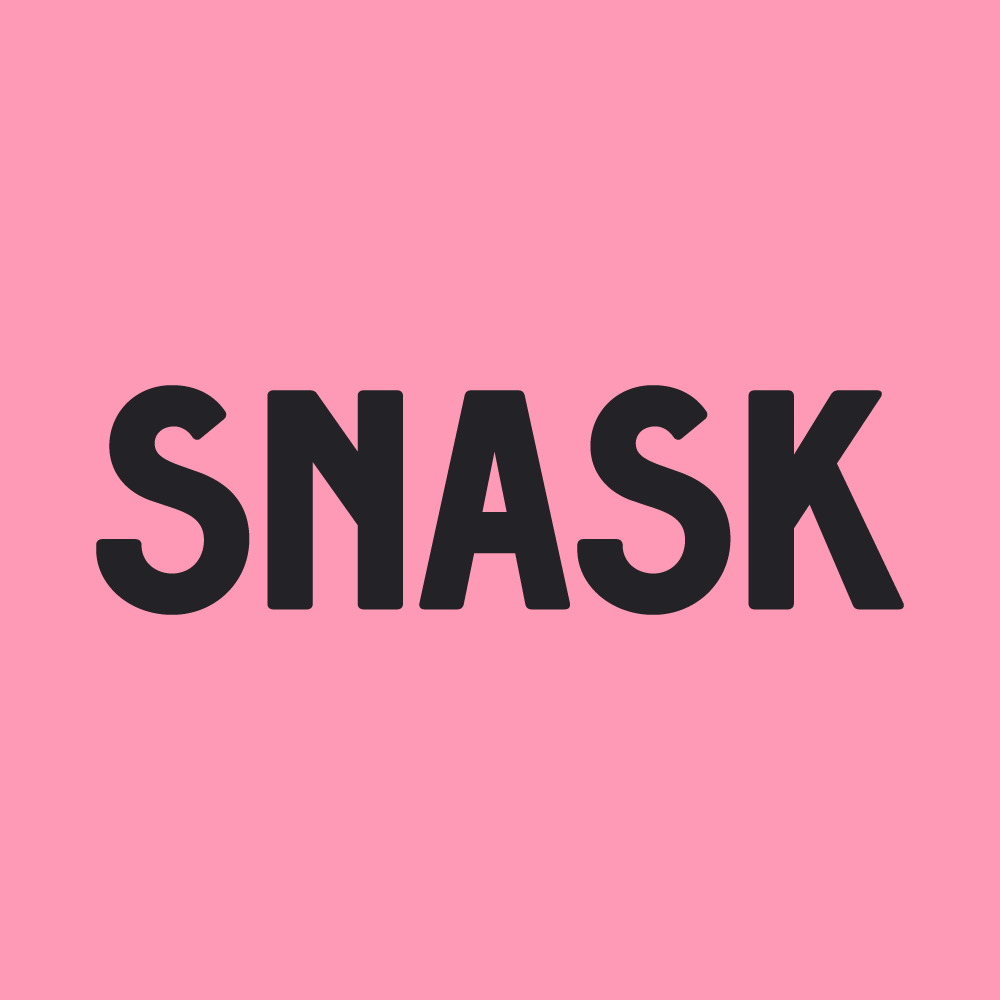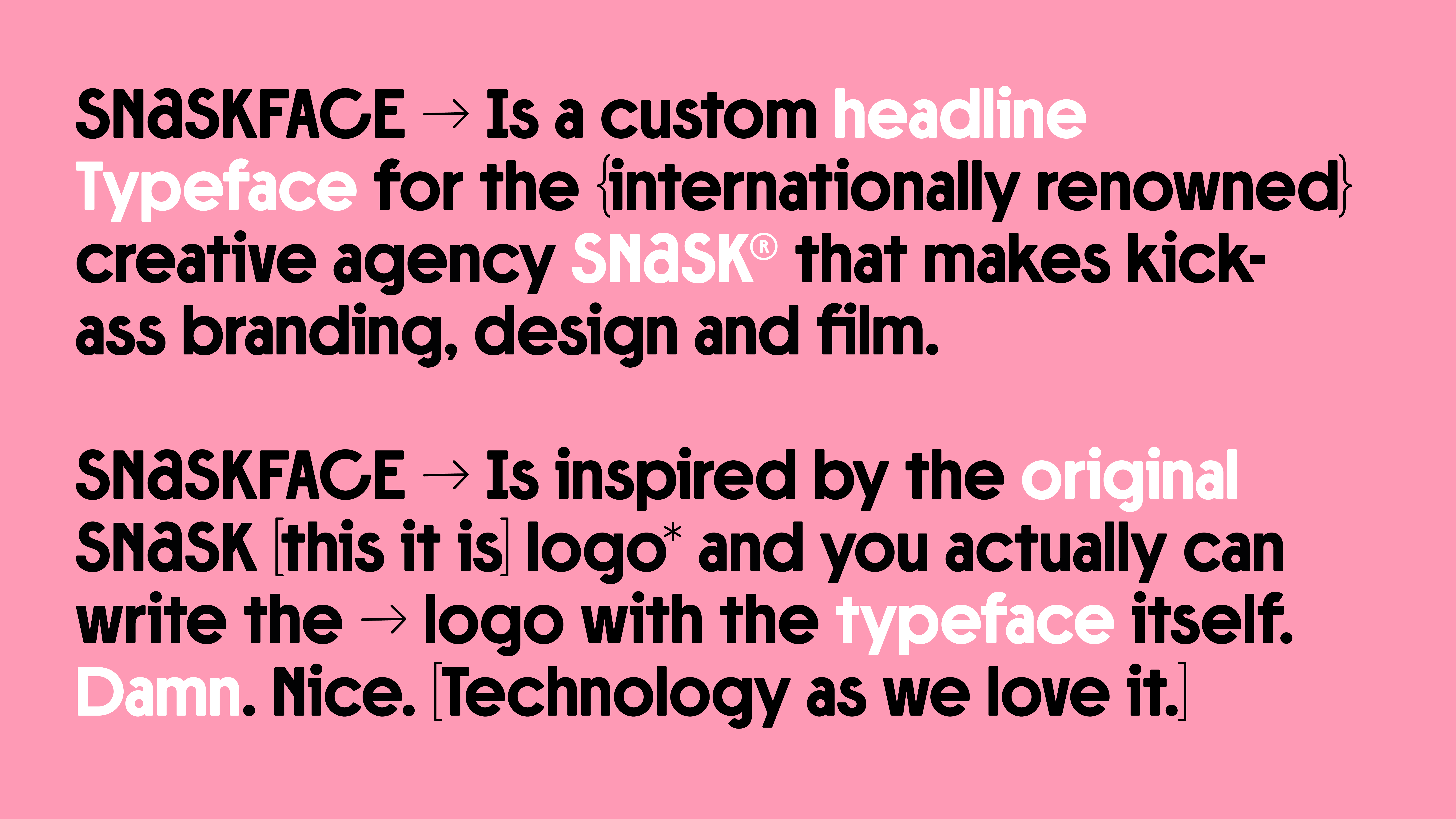
F37 Snaskface
Bottled right from the source, F37 Snask has all the attitude, humour and irreverence Snask is known for, readily available in a convenient font file.
Based off the original Snask logo, the font boasts many successfully unconventional features that give F37 Snask its distinct presence. There is a haphazardly charming approach to letter width that feels at home in both Art Deco and modern environments. The asymmetrical letterforms, rounded corners and mixed stroke endings add cheek and warmth to the font. Also included are many alternate letterforms and a set of thin punctuation.
F37 Snaskface
SNASK is your future romance. A creative agency of misfit geniuses conquering the world through fine lookin' design and real emotions.
They seek to challenge conservative frameworks and they do it with their backs straight, supported by their unbreakable values. They don't cower away from the challenge, as they see that the magic lies within the unexplored. In order to be great - you have to be brave and bold. In order to be real - you have to stand up for your opinions and beliefs. And that is Snask - brave, bold and real. They excel at branding, design and film and refuse to do anything else than what they see as world class. They are doctors of disturbance, wizards of disruption and spokesmen of disobedience. They take on the responsibility to stay engaged, give a damn, and strive for empathy. There is a short word for this assumption of responsibility: Snask.
F37 Snaskface
Tell us about the inspiration behind your collaboration with F37®×. If it was an unused concept, what was the potential use case for it.
Our intern Lukas Diemling helped out in realizing the Snaskface from a logo into a real bespoke typeface. Freddie, founder of Snask went to uni together with Rick, founder of F37®. So that's the connection!
When starting the process of creating your font, what typographic conventions did you look to break or experiment with? Or were there conventions of functionality you championed?
The starting point for the typeface was the original SNASK logotype. From here we wanted to maintain the quirkyness as well as something that broke the norm, still worked great as a typeface and looked better than Mick Jaggers ass in the 60s, actually a bit like our work at Snask.
Now that your typeface has launched, what would be your dream project to use your F37® typeface on?
It would look great on any flag of a dictatorship turned into a real democracy.
What have you learnt through developing and creating your own typeface(s) with our F37® type designers?
Proportions of letters is always a thing where you learn a thing or two. The charming guys from F37 gave us a lot of valuable and technical tips and feedback.
How would you describe your typeface in three words?
Bold, loud and Snasky.